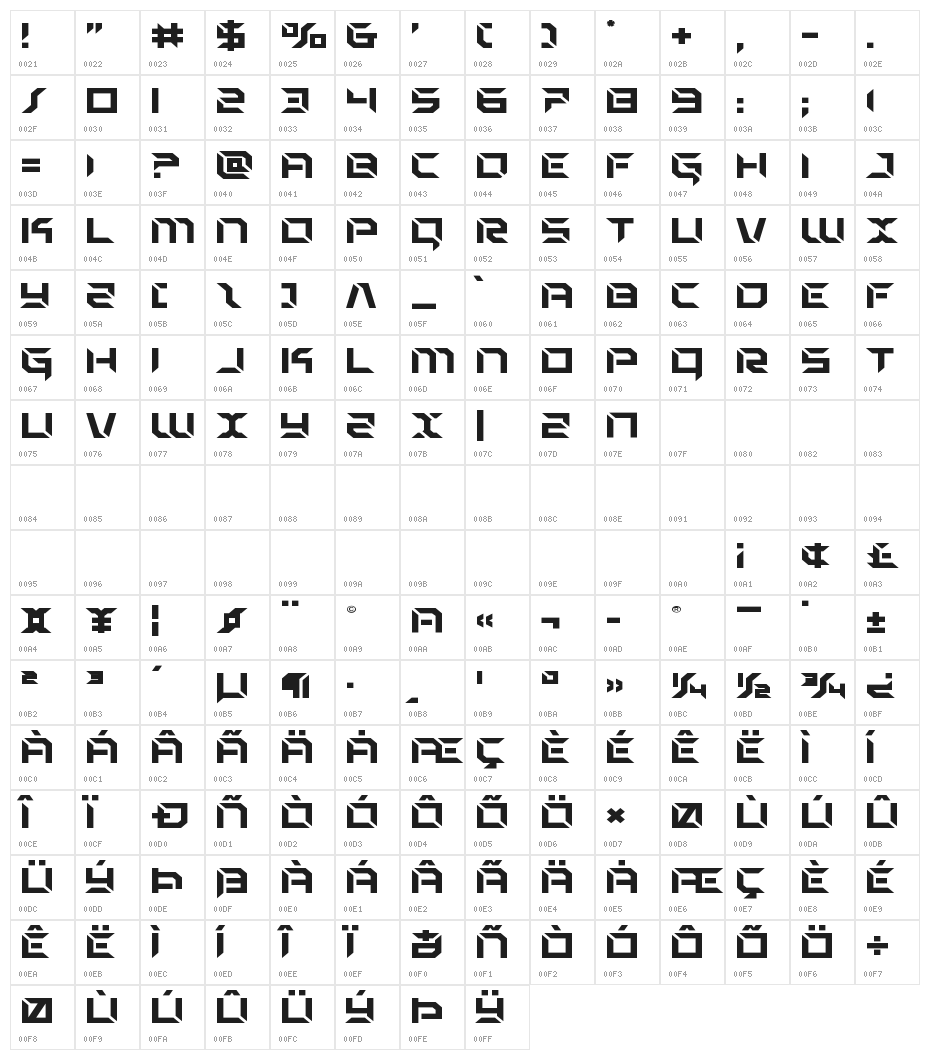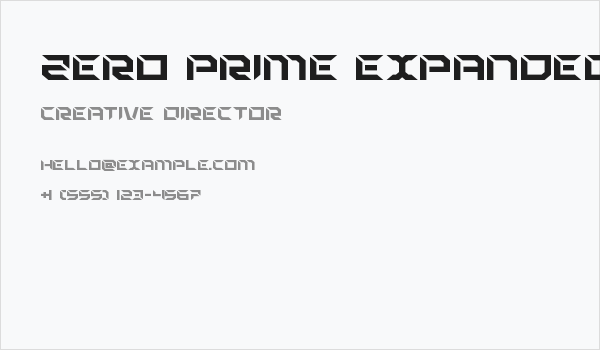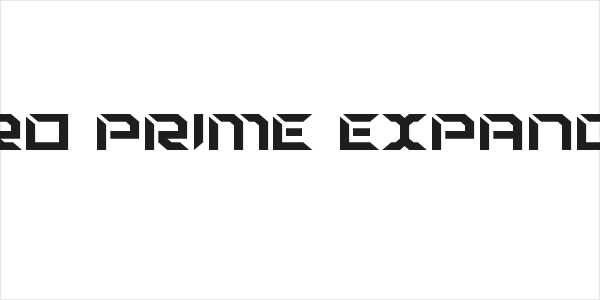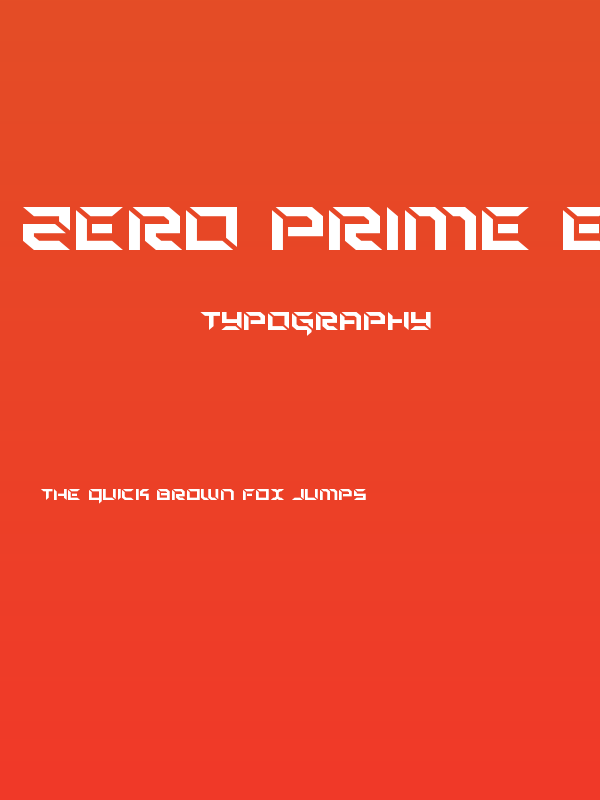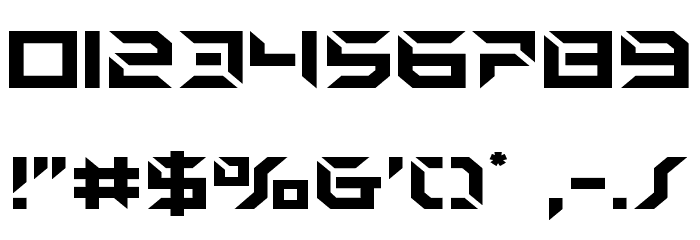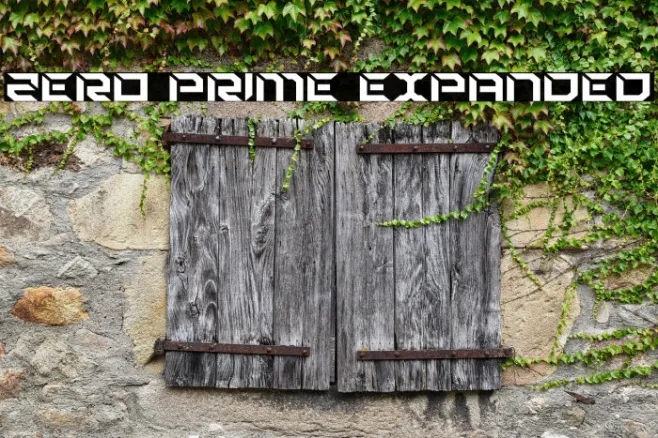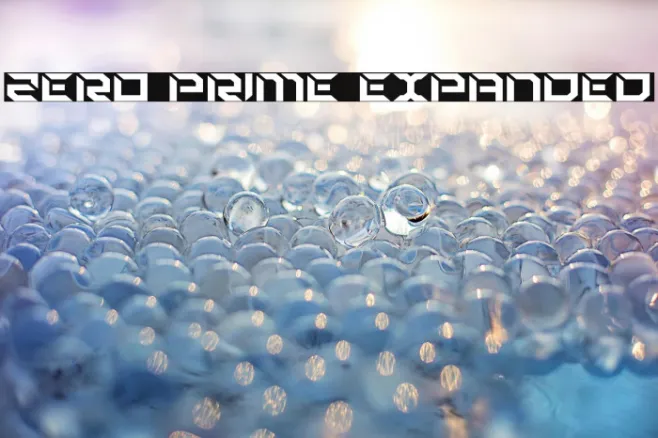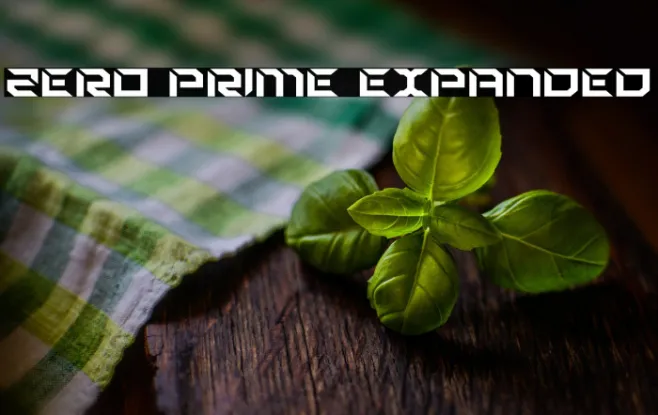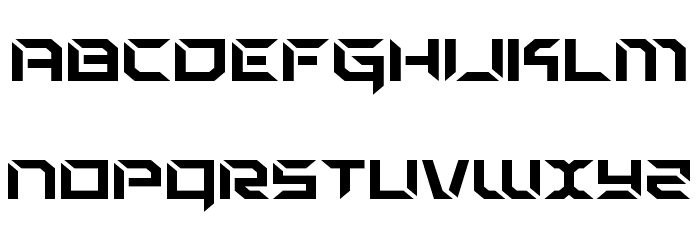
Zero Prime Expanded Font
Zero Prime Expanded Description
This font features a bold and futuristic design with sharp, angular edges and geometric shapes. The characters are constructed with a combination of straight lines and diagonal cuts, creating a dynamic and edgy appearance. The uppercase and lowercase letters maintain a consistent style, with a strong emphasis on symmetry and balance. The numerals and special characters follow the same design principles, ensuring a cohesive look across all elements. This font's unique style makes it stand out, ideal for projects that require a modern and tech-inspired aesthetic.